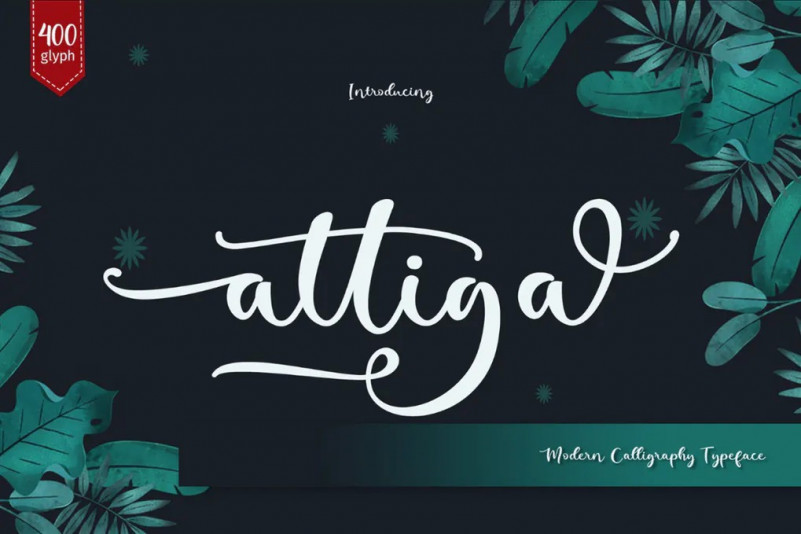
Attiga Font
Attiga Script Modern Calligraphy Fonts, combines from copperplate to contemporary typeface with a dancing baseline, classic and elegant touch. Can be used for various purposes. such as headings, signature, logos, wedding invitation, t-shirt, letterhead, signage, lable, news, posters, badges etc.